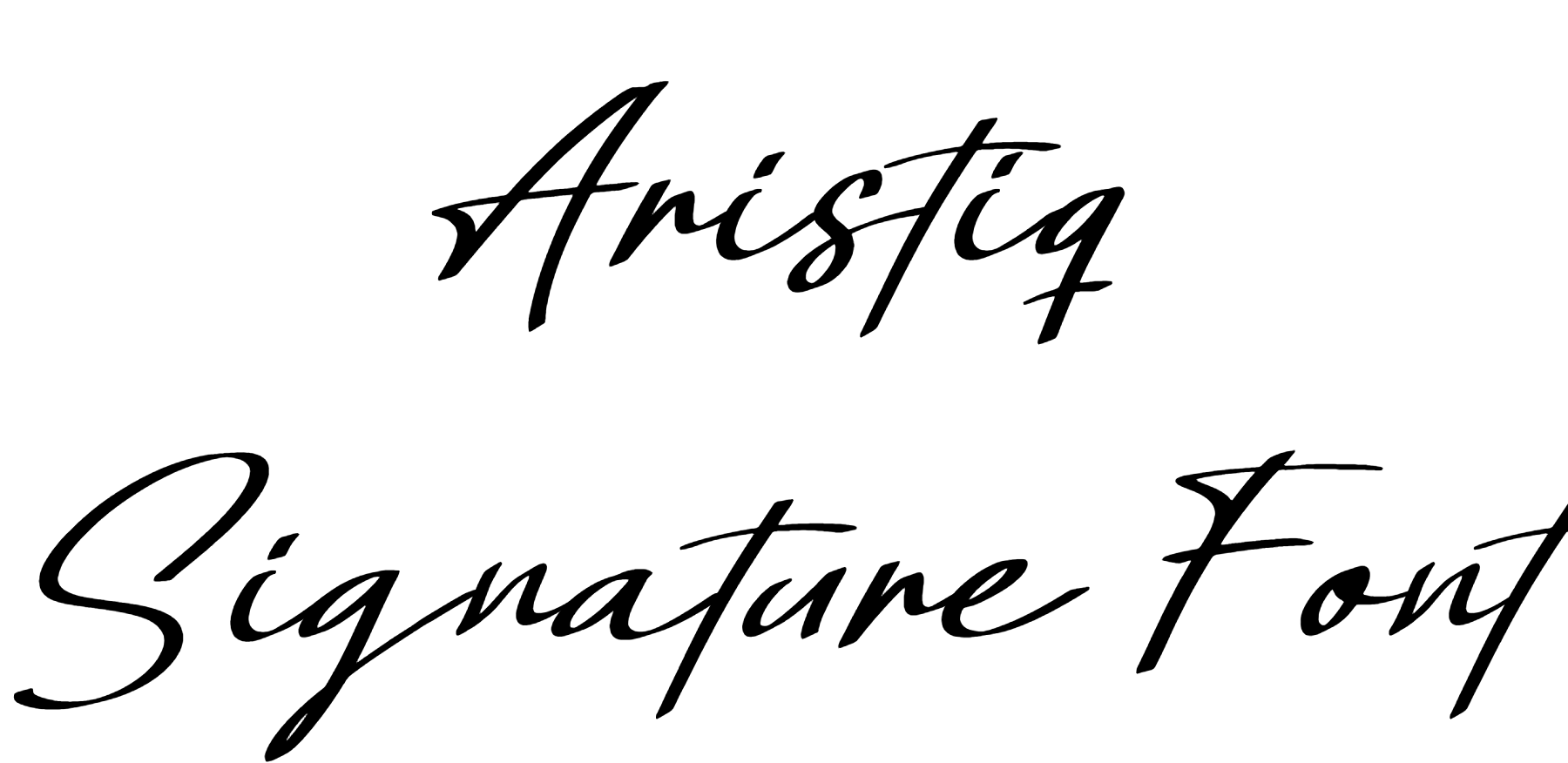
Aristiq Signature
Aristiq Signature is a handwritten font created by Yesie Erma Yunita and released through Shanaf Design Studio Font (2025). It has a casual, written-with-a-pen look that makes designs feel personal. You can download it for free and test it with your own words in the preview above.
- Designer: Yesie Erma Yunita
- Publisher: Shanaf Design Studio Font
What You Can Type With Aristiq Signature
With complete upper and lowercase letters and all ten digits, Aristiq Signature is ready for real wording, not just a single headline. Everyday marks like &, !, ? and @ are there too. Thanks to its accented letters, it also works for Spanish, French, German, Portuguese and Italian, not just English.
Where Aristiq Signature Works Best
Aristiq Signature is a natural fit for greeting cards, journal pages and friendly social posts. Its lowercase letters are small compared to the capitals, so set it a size or two bigger than usual. The file has no kerning data, so in logos and big titles check pairs like AV, To and Wa and tighten the spacing by hand. Set it a bit larger than you would a normal text font. Handwriting styles lose their charm once they get too small to read comfortably.
Yes. Aristiq Signature includes the accented letters needed for Spanish, French, German, Portuguese and Italian, so it works for more than just English.